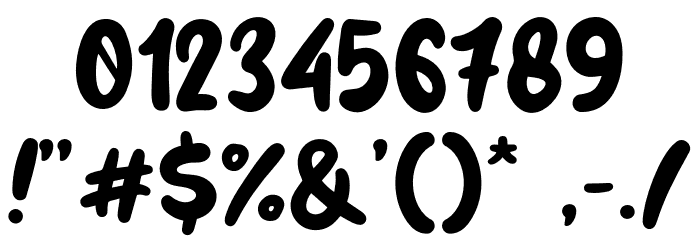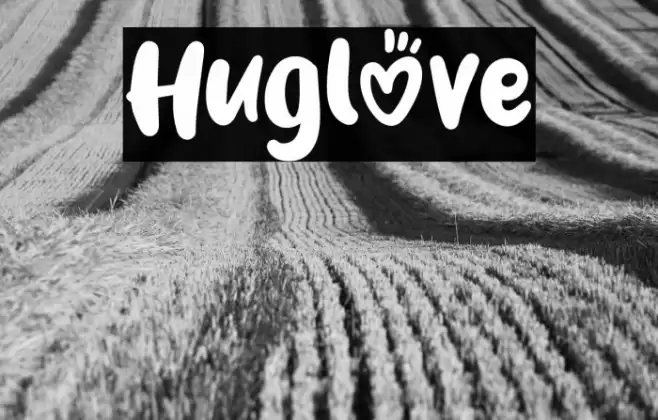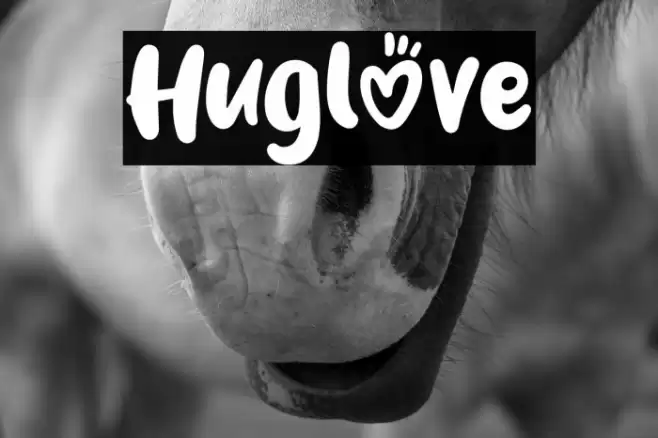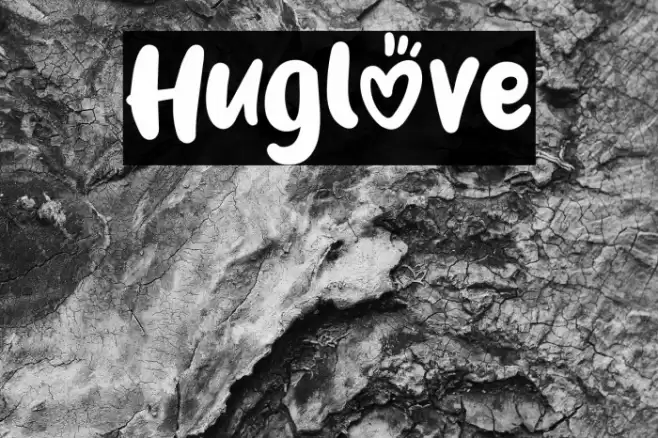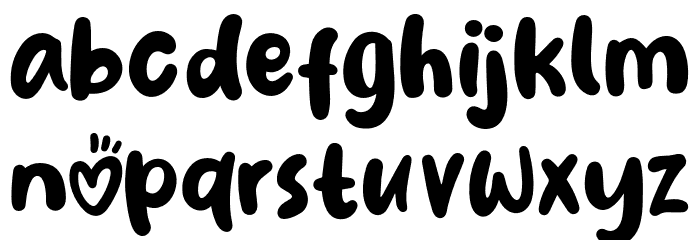
Huglove Font
Huglove Description
This playful and bold font features rounded, thick strokes that give it a friendly and approachable appearance. The characters are slightly irregular, adding a whimsical touch that enhances its charm. The uppercase and lowercase letters maintain consistency in style, with a smooth flow that makes it easy to read. The numbers and special characters are designed to match the overall aesthetic, ensuring a cohesive look across all text. This font's unique personality makes it ideal for projects that require a fun and lively vibe.
| Overall Style | Playful, Whimsical |
| Proposed Projects | Perfect for children's books, playful branding, greeting cards, and social media graphics. |